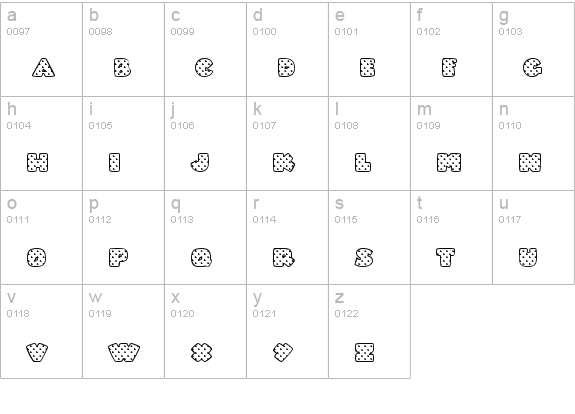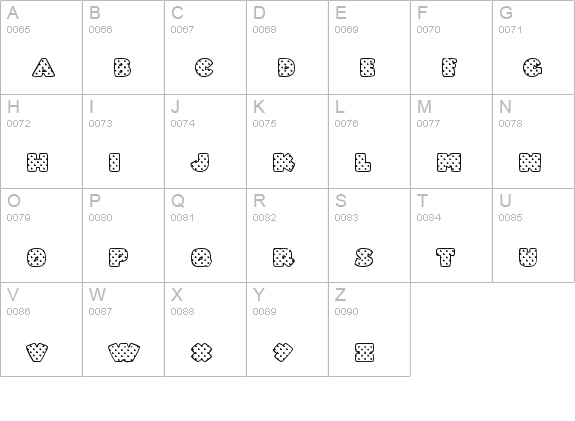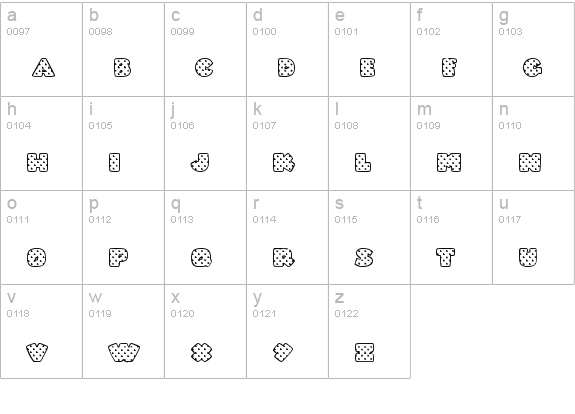
Fatty Heart Filled Font Details
Fatty Heart Filled font is a delightful and charming display typeface that exudes a sense of fun and playfulness. With its bold and rounded letterforms, this font is perfect for adding a touch of whimsy to your designs. The Fatty Heart Filled font is ideal for a variety of creative projects, from greeting cards to posters to branding materials. Best of all, this unique font is available for free download at FontsMarket.com. You can easily add Fatty Heart Filled to your font collection and start using it in your projects right away. Embrace the joy and creativity that this font brings, and let your imagination run wild with the possibilities it offers. Download Fatty Heart Filled font today and bring a touch of cheer to your designs!